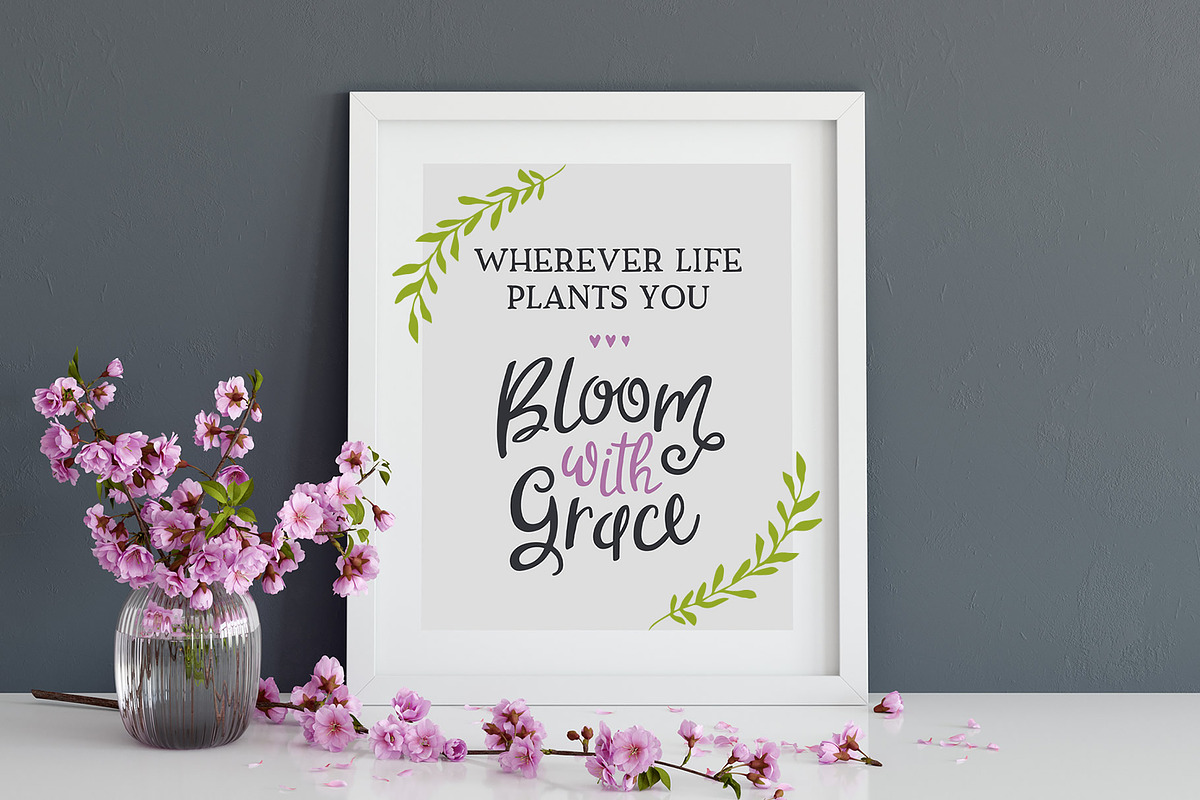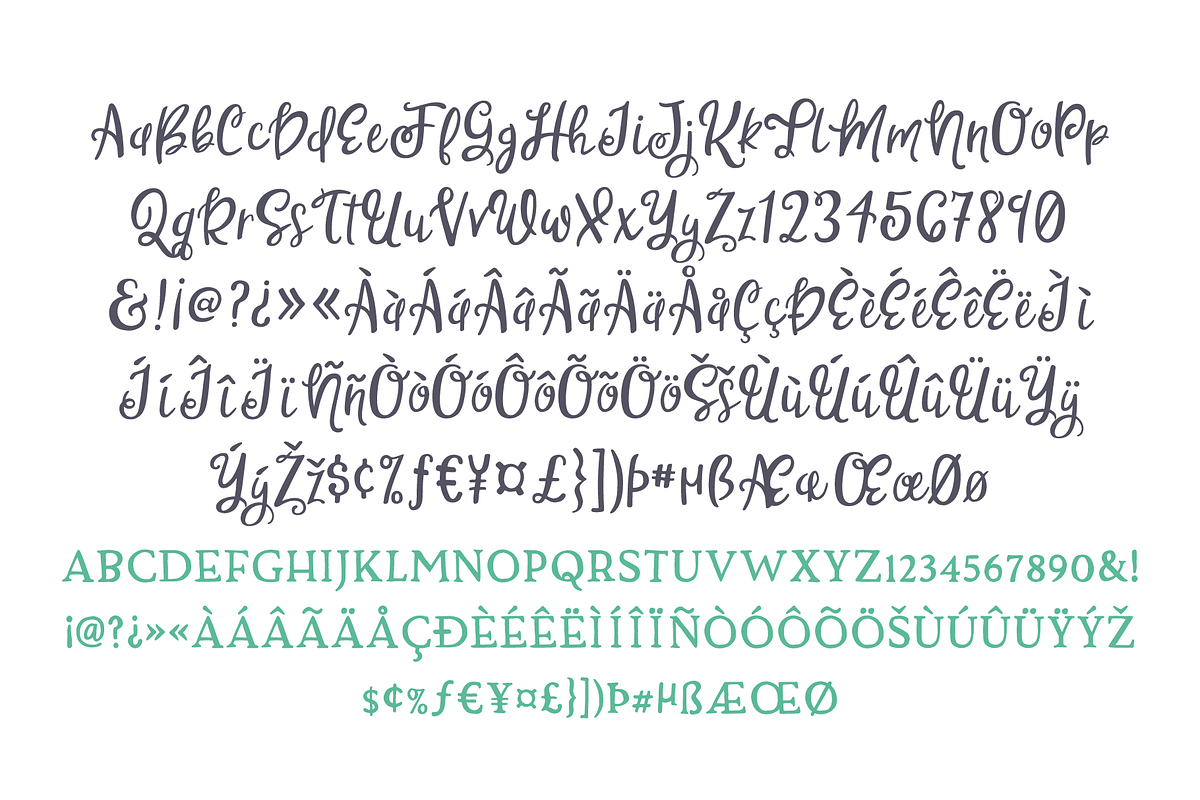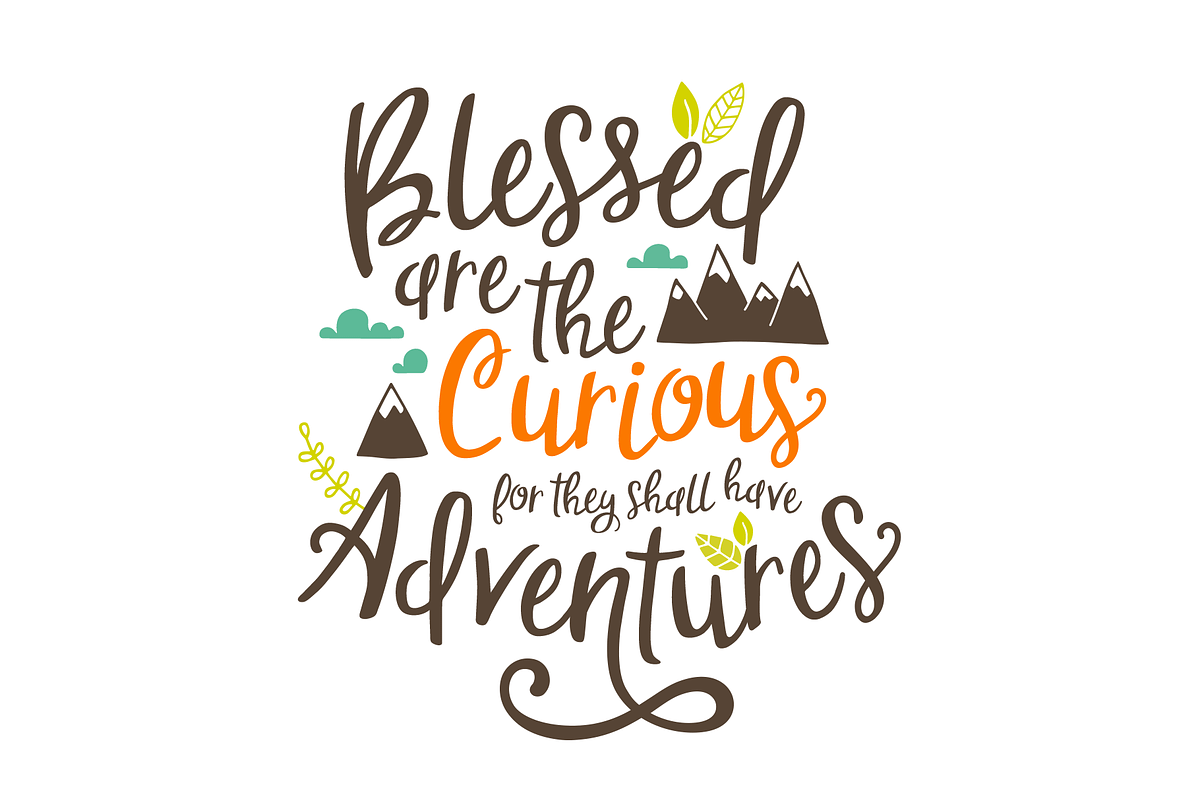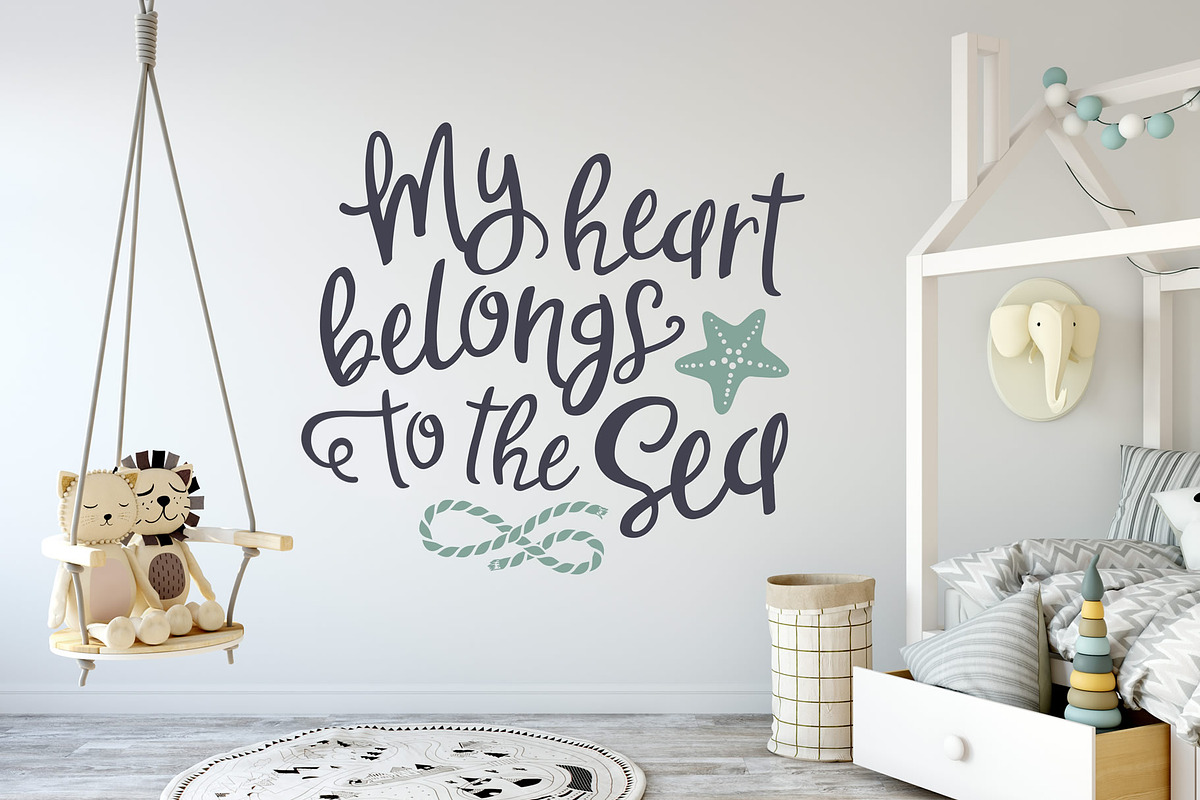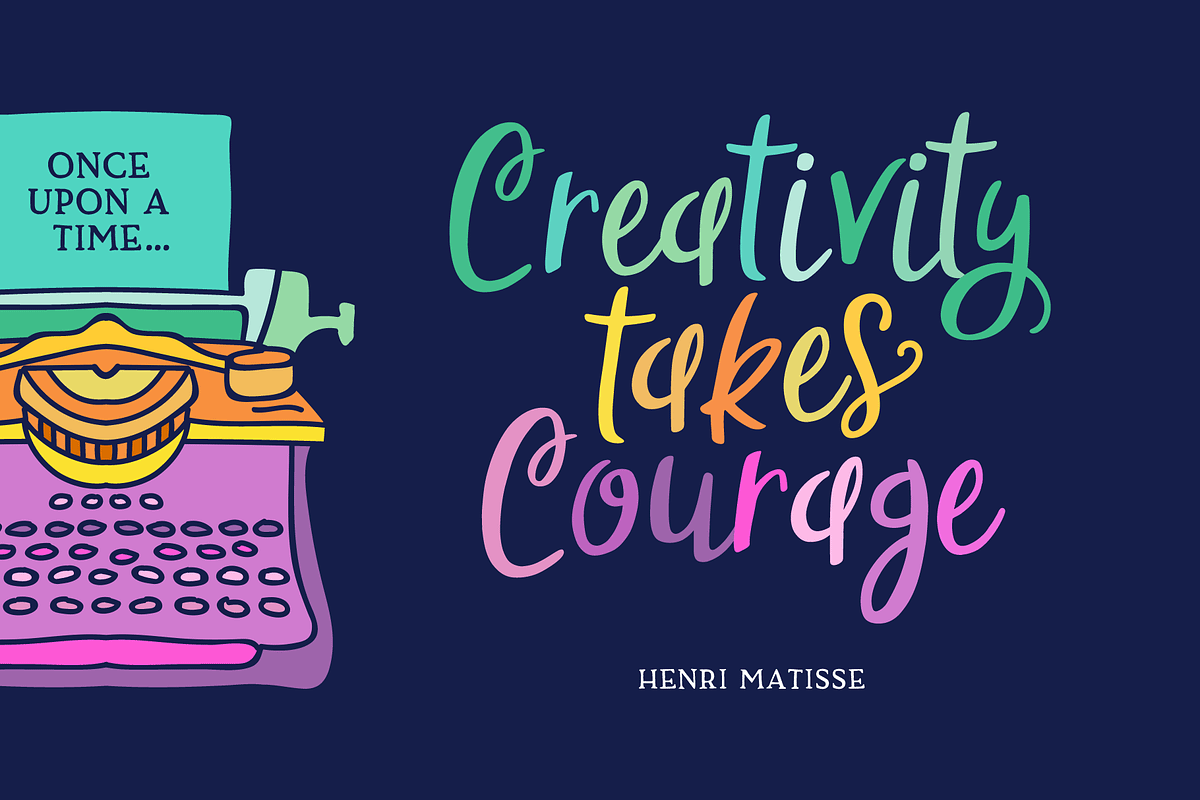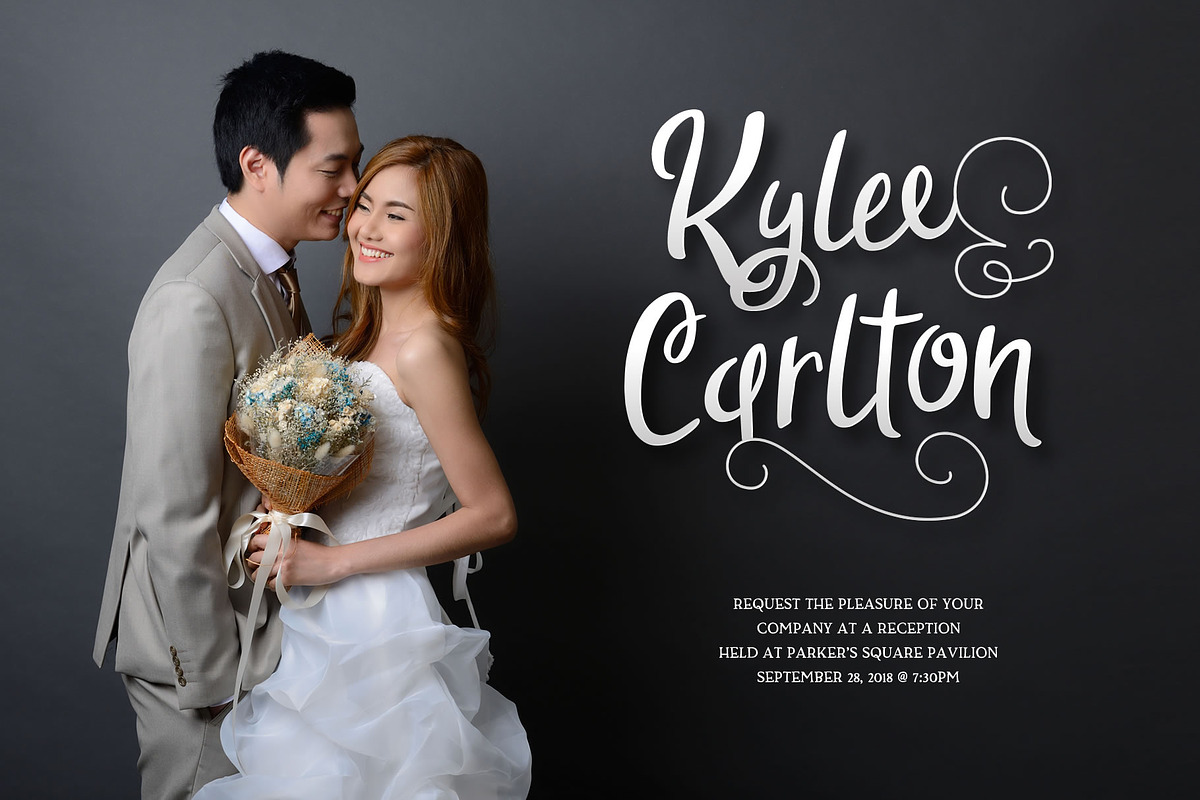
Sweet Nothings Script + Bonus Font!
Sweet Nothings is a romantic script that lives in that space between fancy and casual. Dress it up, or dress it down, it's always a perfect fit. Comes with a coordinating serif font to make font pairing a breeze.